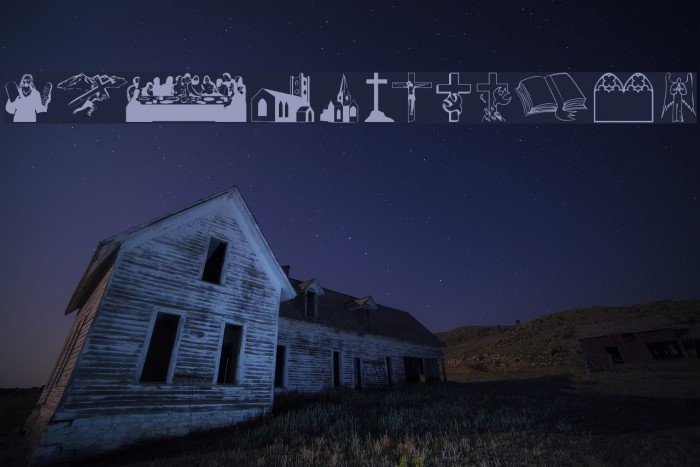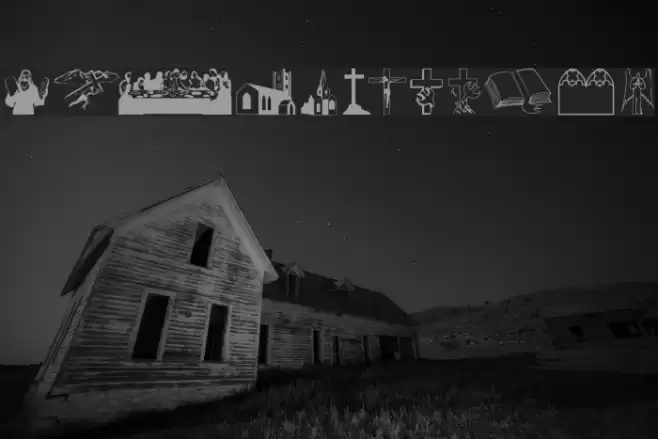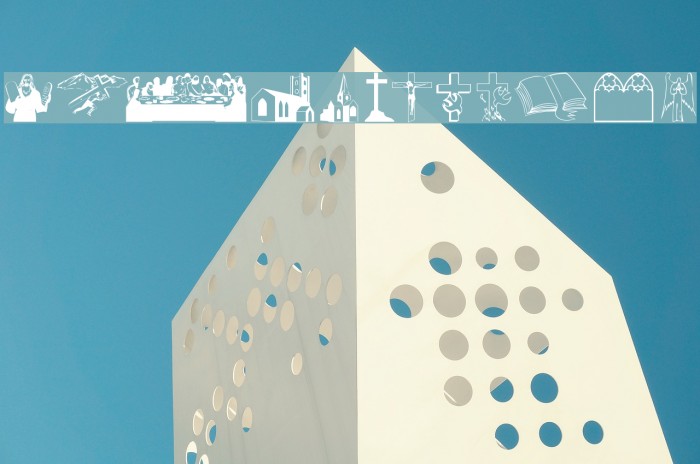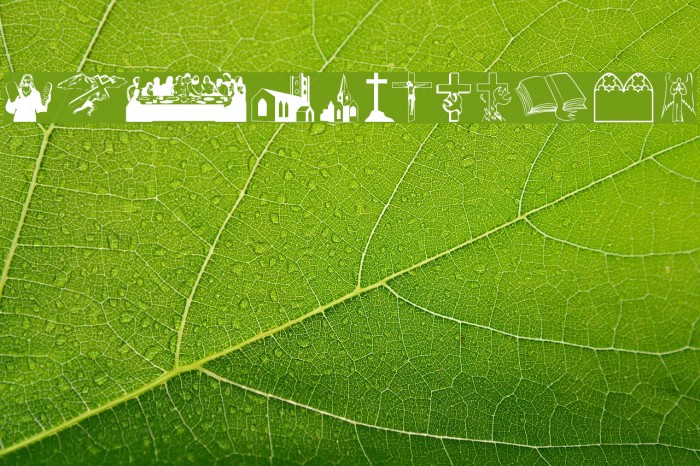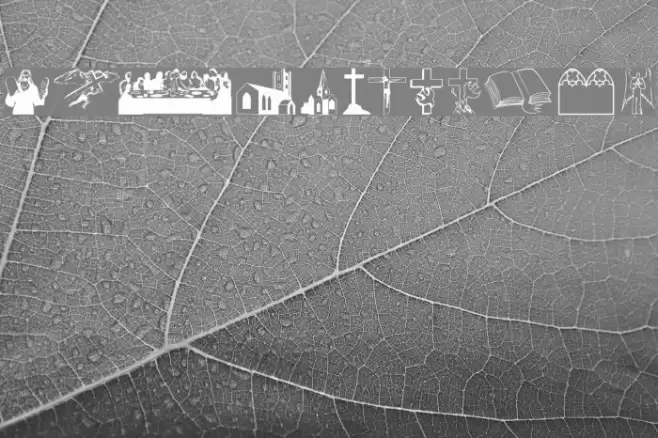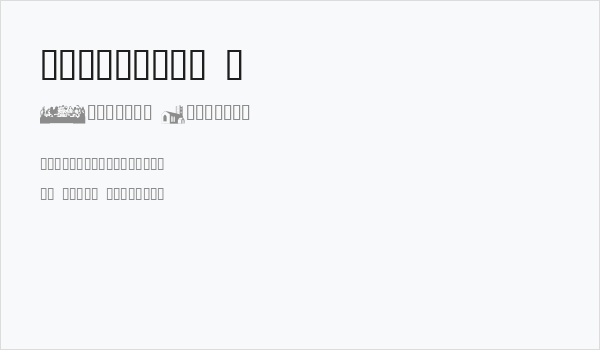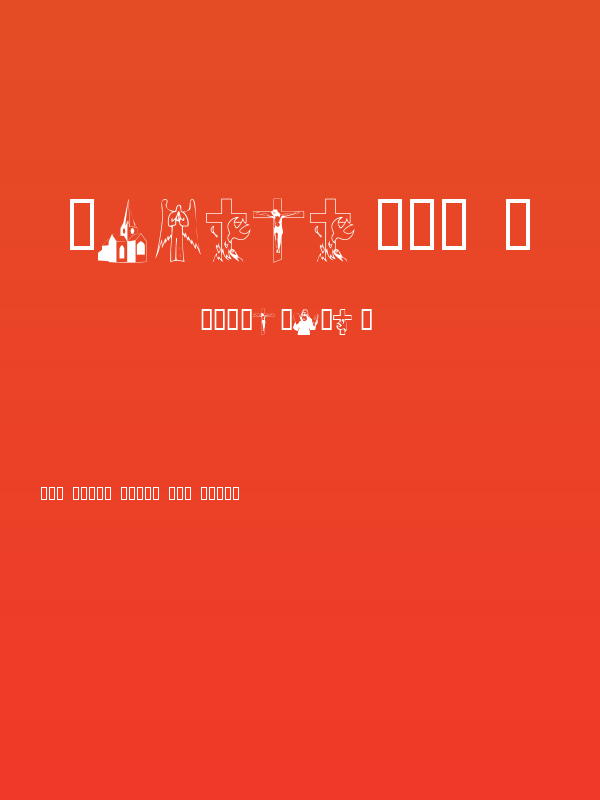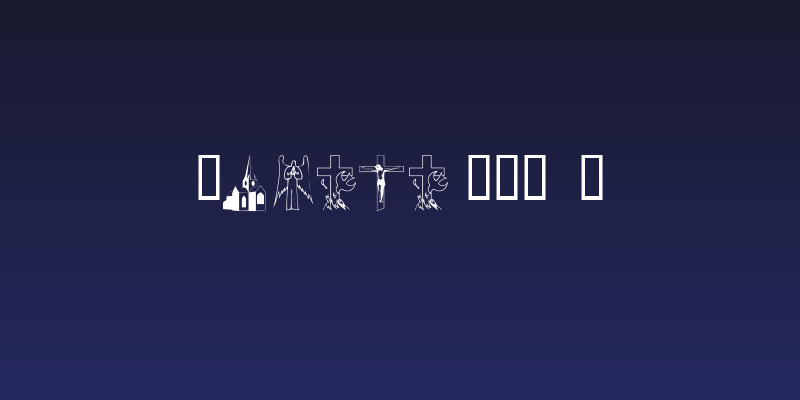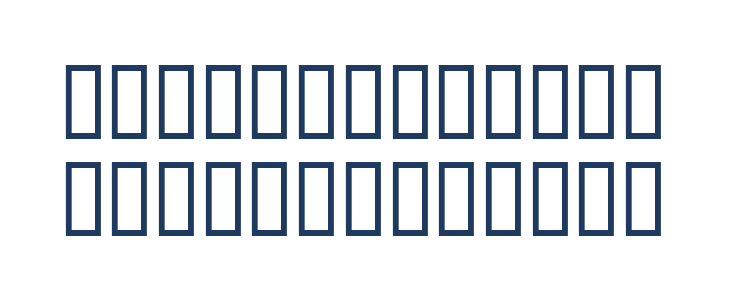
Religious 2 Font
Religious 2 Description
A decorative dingbat font featuring religious-themed pictograms such as Jesus, churches, crosses, the Last Supper, open books, stained glass, and angels. The glyphs are rendered in bold, high-contrast black-and-white silhouettes, suitable for thematic visual accents.
| Overall Style | Decorative, Thematic |
| Use Case | Icons, Decorative elements, Themed dividers |
| Proposed Projects | Church bulletins, religious event flyers, Sunday school materials, decorative borders, faith-based graphic design. |